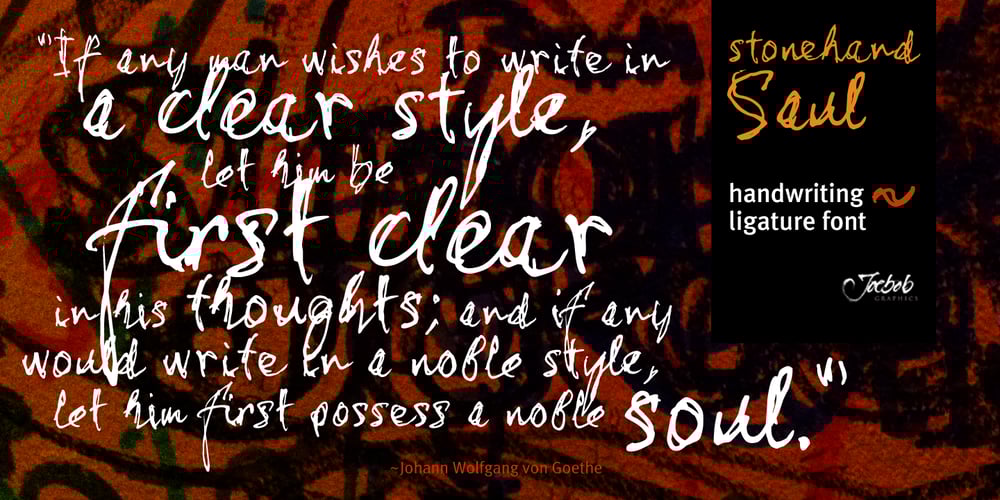
StonehandSaul Font Family was designed by Jeroen “Joebob” van der Ham and published by JOEBOB graphics. StonehandSaul contains 1 styles and family package options. This time I tried to create something different and so I made a handwritten script with an ‘intoxicated’ hand that went all over the place.It comes with a huge amount of ligatures which works quite well, but unfortunately not many people seem to be able to use it.